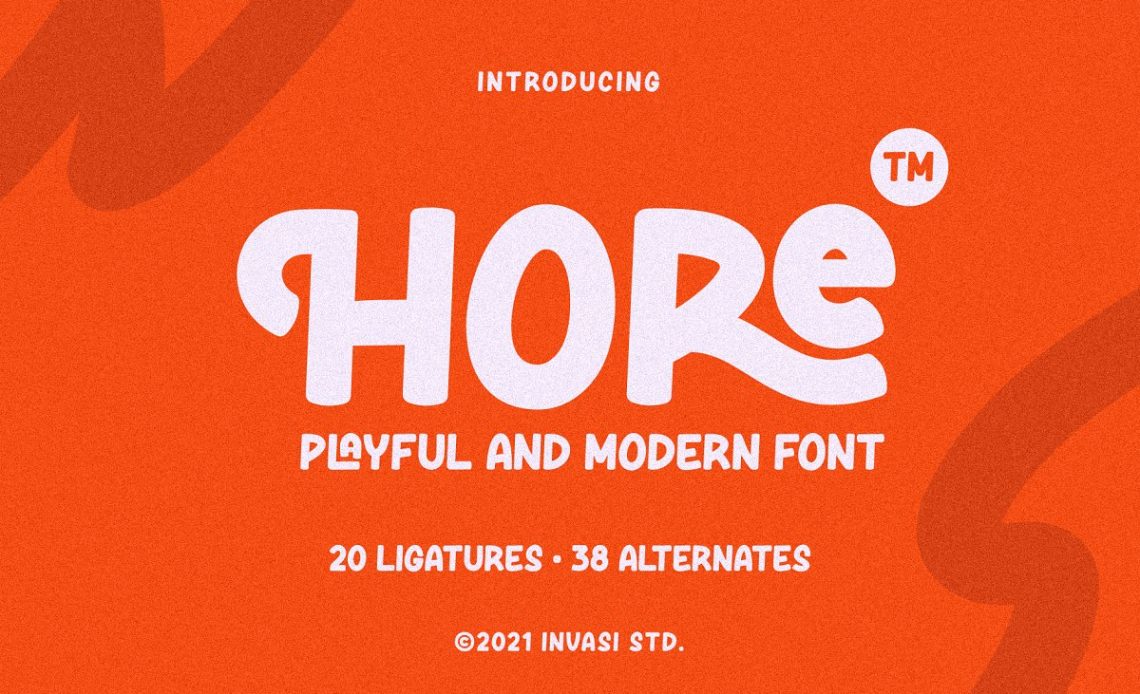
\nLooking for a new and fun font collection? Look no further than Hore - Playful Font! Created by Invasi Studio, this font family combines modern, playful, and formal styles to create a unique and eye-catching look. With so many alternates and ligatures to choose from, you'll have endless options for making your projects stand out. \n\nPerfect for branding projects or packaging that need a quirky and playful feel, Hore font is multilingual and includes punctuation, alternates, and ligatures. You'll receive the font in OTF, TTF, and WOFF formats, making it easy to use in a variety of design programs. \n\nAnd if you're not sure how to access the alternate glyphs, don't worry - we've included a helpful link to a tutorial from Adobe Illustrator CS. Plus, with our support email available, you can always reach out for assistance with editing your file. \n\nDon't miss out on this playful font bundle, and be sure to check out our sale on the Playful Font Bundle Collection. Visit our website for more information about licensing and how to purchase. With Hore - Playful Font, you'll have everything you need to elevate your designs and make them truly stand out. \n